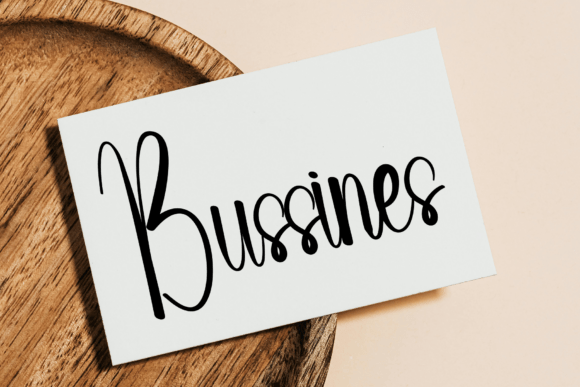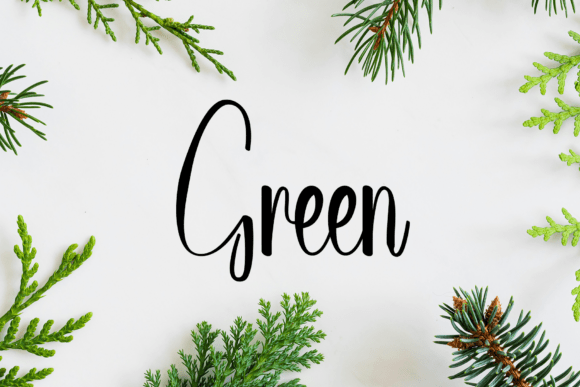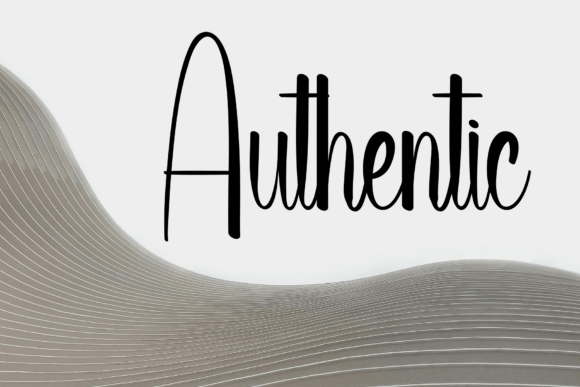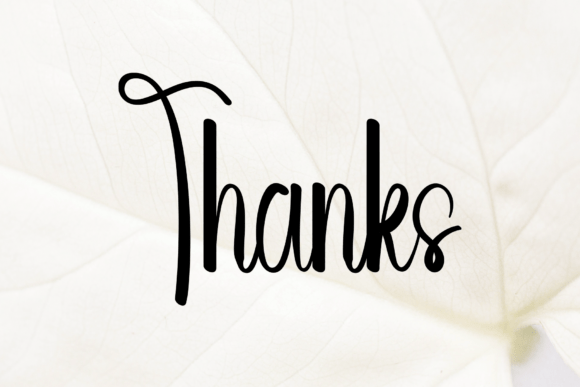
Introducing Envelope Font: The Perfect Handwritten Touch for Your Designs
Are you looking for a font that adds a touch of warmth and personality to your design projects? Look no further than Envelope Font, a charming handwritten font that exudes a sense of heartfelt perfection. With its smooth strokes and organic lines, Envelope Font is the perfect choice for designers and crafters who want to create beautiful and engaging designs that resonate with their audience.
The Characteristics of Envelope Font
Envelope Font is a unique and elegant handwritten font that is filled with a sense of relaxed sophistication. Its smooth strokes and organic lines give it a natural and effortless feel, making it perfect for a variety of design projects. Whether you’re creating branding materials, invitations, or social media graphics, Envelope Font is the perfect choice for adding a touch of warmth and personality to your designs.
One of the standout features of Envelope Font is its versatility. It can be used for both personal and professional projects, and its elegant and refined appearance makes it perfect for designs that require a touch of sophistication. Whether you’re creating a logo, a wedding invitation, or a social media graphic, Envelope Font is the perfect choice for adding a touch of elegance and refinement to your design.
Uses for Envelope Font
Envelope Font is a versatile font that can be used for a wide range of design projects. Here are just a few examples of how you can use Envelope Font to add a touch of warmth and personality to your designs:
- Branding: Use Envelope Font to create a logo or branding materials that reflect your company’s personality and values. Its smooth strokes and organic lines make it perfect for creating a unique and memorable brand identity.
- Invitations: Add a touch of elegance and refinement to your invitations with Envelope Font. Its elegant and refined appearance makes it perfect for wedding invitations, birthday invitations, and other special occasions.
- Social Media Graphics: Use Envelope Font to create engaging and eye-catching social media graphics that reflect your brand’s personality and values. Its smooth strokes and organic lines make it perfect for creating graphics that stand out on social media.
- Crafting: Envelope Font is also perfect for crafters who want to add a touch of personality to their projects. Use it to create handmade cards, gift tags, and other craft projects that require a personal touch.
Why Choose Envelope Font?
There are many reasons why Envelope Font is the perfect choice for designers and crafters. Here are just a few:
- Unique and Elegant: Envelope Font is a unique and elegant handwritten font that adds a touch of warmth and personality to any design project.
- Versatile: Envelope Font is a versatile font that can be used for a wide range of design projects, from branding and invitations to social media graphics and crafting.
- Easy to Read: Envelope Font is easy to read and understand, making it perfect for designs that require a clear and concise message.
- High-Quality: Envelope Font is a high-quality font that is designed to provide a smooth and consistent appearance in any design project.
Tips for Using Envelope Font
Here are a few tips for using Envelope Font in your design projects:
- Use it sparingly: Envelope Font is a elegant and refined font, so it’s best to use it sparingly to add a touch of personality to your designs.
- Pair it with other fonts: Envelope Font pairs well with other fonts, so feel free to experiment with different font combinations to create a unique and eye-catching design.
- Experiment with colors: Envelope Font looks great in a variety of colors, so don’t be afraid to experiment with different colors to find the perfect look for your design.
In conclusion, Envelope Font is a charming handwritten font that is perfect for designers and crafters who want to add a touch of warmth and personality to their design projects. Its smooth strokes and organic lines make it perfect for a variety of design projects, from branding and invitations to social media graphics and crafting. With its versatility, elegance, and high-quality design, Envelope Font is the perfect choice for anyone looking to add a touch of elegance and refinement to their designs.